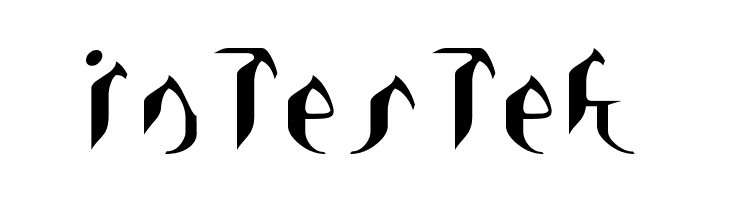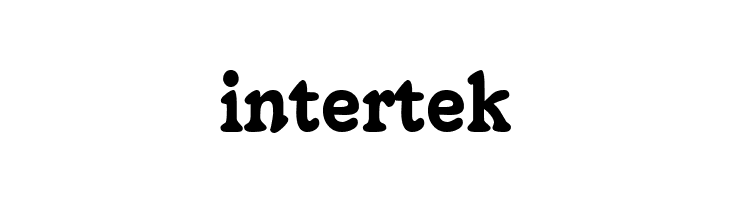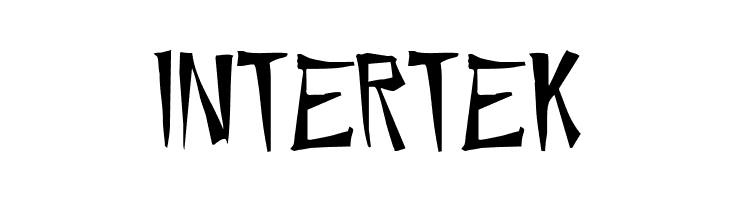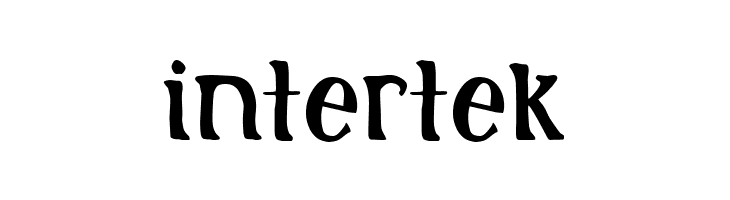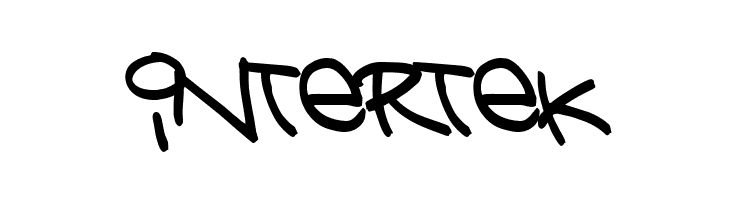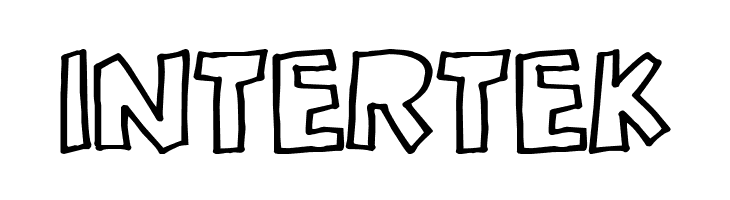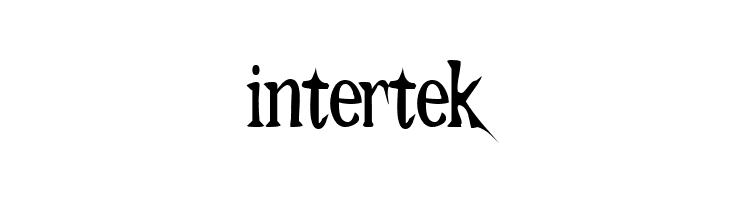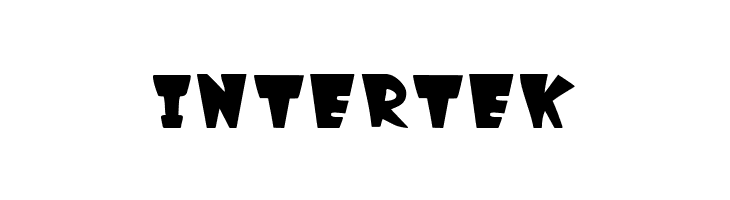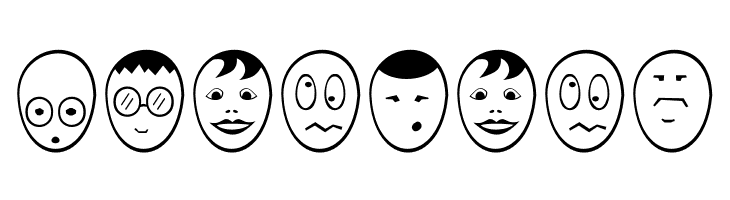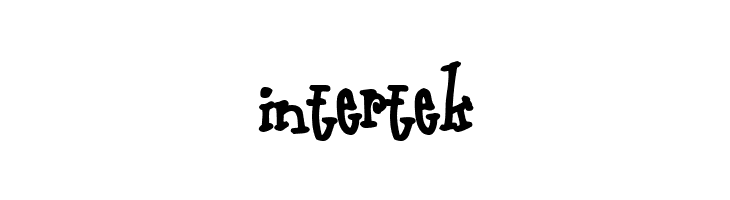
( Fonts by Typearound )
A bold, angular font with sharp lines and a distinctive, edgy style.
A playful, hand-drawn font with irregular curves and a whimsical style.
A bold, graffiti-inspired font with dynamic and energetic strokes.
A playful, hand-drawn font with bold outlines and a cartoonish style.
( Fonts by Omega Font Labs )
A bold, artistic serif font with sharp angles and smooth curves.
( Fonts by AJ Palmer )
A playful, bold font with a whimsical, hand-drawn style and rounded, irregular shapes.
( Fonts by Slub Design - Raymond Buetens - www.slubdesign.com )
A bold, dynamic font with sharp angles and a playful, energetic feel.
A playful, hand-drawn font with bold, irregular strokes and quirky letterforms.
( Fonts by Astigmatic One Eye Typographic Institute - Brian J. Bonislawsky - astigmatic.com )
A bold, angular font with sharp geometric lines and dynamic style.
( Fonts by Omega Font Labs )
A bold, Gothic-inspired font with sharp, angular strokes and wide characters.
( Fonts by Alan Carr )
A playful, bold font with rounded, bubble-like characters.
( Fonts by uatype.faithweb.com - UnAuthorized Type )
A playful, cartoonish font with characters integrated into dynamic illustrations.
( Paul Lloyd Fonts )
A bold, dramatic font with sharp angles and smooth curves, perfect for creative projects.
A bold, dynamic font with sharp angles and a slightly condensed form.
( Fonts by Andy Krahling - Sunwalk )
A playful, hand-drawn font with bold outlines and a whimsical style.
A bold, hand-drawn font with a dynamic shadow effect and playful style.
( Fonts by Iconian Fonts - Daniel Zadorozny )
A bold, angular serif font with a dramatic and powerful presence.
A playful and whimsical font with bold, wide letters and distinctive serifs.
( Fonts by Rob Dobi - Toxic Type - www.dobi.nu )
A bold, dynamic font with sharp, angular strokes and a slanted, energetic style.